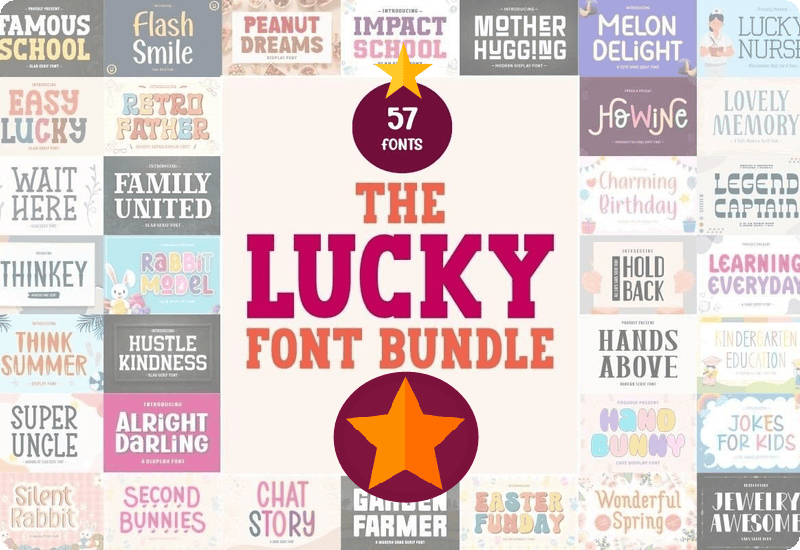
Transform your creative projects with a diverse collection of styles, featuring modern sans serifs and whimsical handwritten fonts.
What’s Inside the Lucky Font Bundle?
- Eightde Creative Sans Serif Font
- Famous School Slab Serif Font
- Impact School Slab Serif Font
- Family United Slab Serif Font
- Wait Here Slab Serif Font
- Mother Modern Sans Serif Font
- Kindergarten Education Sans Serif Font
- Super Uncle Slab Serif Font
- Simple Angel Script & Handwritten Font
- Alright Darling Display Font
- Jokes for Kids Script & Handwritten Font
- Easy Lucky Slab Serif Font
- Parenting Teenagers Czcionki Skryptowe Czcionka
- Charming Birthday Display Font
- Flash Smile Sans Serif Font
- Return Magics Script & Handwritten Font
- Lovely Memory Serif-Schriftarten Schriftart
- Chat Story Sans Serif Font
- Howine Sans Serif Font
- Hustle Kindness Slab-Serif-Schriftarten Schriftart
- Rabbit Model Display Font
- Silent Rabbit Script & Handwritten Font
- Romantic Comeback Serif Font
- Believe Ability Script & Handwritten Font
- Nice Life Sans Serif Font
- Peanut Dreams Display Font
- Garden Farmer Sans Serif Font
- Think Summer Display Font
- Beautiful in Its Time Sans Serif Font
- Lucky Nurse Slab Serif Font
- Youth Smile Display Font
- Brave Monday Script & Handwritten Font
- Stand Together Sans Serif Font
- Easter Funday Fuentes Display Fuente
- Thinkey Sans Serif Font
- Retro Father Display-Schriftarten Schriftart
- Melon Delight Sans Serif Font
- Jewelry Awesome Sans Serif Font
- Hold Back Sans Serif Font
- Hands Above Sans Serif Font
- Mostrend Script & Handwritten Font
- Fall Down Display Font
- Hotcake Display Font
- Worry About Me Sans Serif Font
- Second Bunnies Display Font
- Daily Worker Script & Handwritten Font
- Mother Hugging Display Font
- Great Mama Sans Serif Font
- Wonderful Spring Script & Handwritten Font
- Hand Bunny Display Font
- Easy Easter Fontes de Exibição Fonte
- Nomore Display Font
- Legend Captain Slab Serif Font
- Sixpack Workout Script & Handwritten Font
- Hopehop Script & Handwritten Font
- Learning Everyday Sans Serif Font
- Teacher Kindness Sans Serif Font